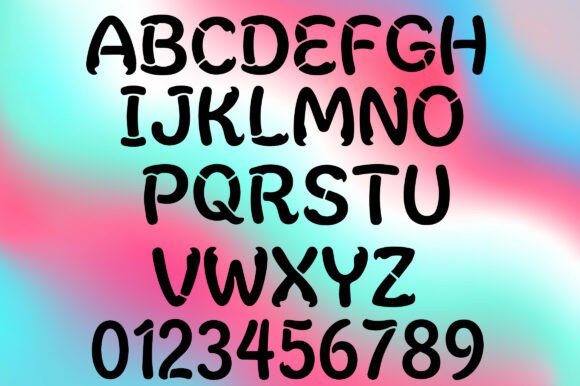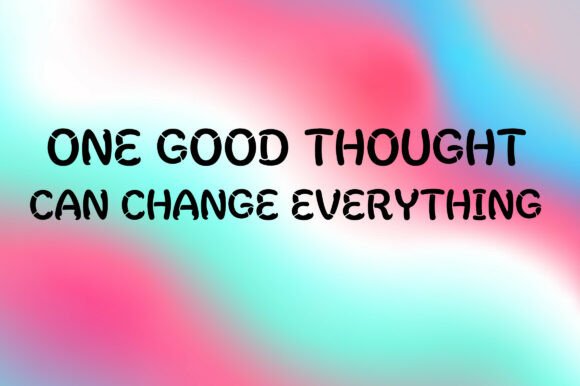
The Joy of Fonts: How Choose Happiness Became My Go-To for Fun Projects
I still remember the time I was working on a children’s party invitation project, and I just couldn’t find the right font to match the playful vibe I was going for. The client wanted something fun, cheerful, and eye-catching, but everything I tried seemed either too boring or too over-the-top. That’s when I stumbled upon Choose Happiness, a playful display font that instantly brought a smile to my face. Its rounded shapes and quirky cutout details were exactly what I needed to bring the project to life.
An Honest Review of Choose Happiness
- ✨ The fun, cheerful, and handcrafted look that makes it perfect for kids’ projects, posters, branding, crafts, and happy eye-catching designs.
- ✅ The rounded shapes and quirky cutout details that give it a unique personality.
- 💡 The font’s versatility – it can be used for both digital and print projects.
While Choose Happiness is an amazing font, there are a few things to keep in mind:
- ⚠️ The font’s playful nature might not make it suitable for more formal or professional projects.
- 🤔 Some of the quirky cutout details might not display well at very small font sizes.
The Story Behind Choose Happiness
Choose Happiness was designed with one goal in mind: to spread joy and positivity through typography. The designer, inspired by childhood memories of crafting and making art, wanted to create a font that would bring a smile to people’s faces. With its rounded shapes and quirky cutout details, Choose Happiness is the perfect reflection of that goal.